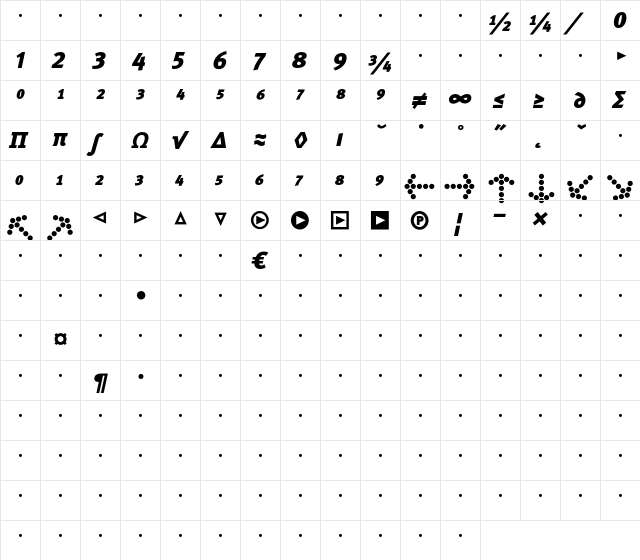
MetaBlackCyr-ItalicExpert Regular
Design Context for MetaBlackCyr-ItalicExpert Typeface
MetaBlackCyr-ItalicExpert takes a measured approach to typography — its balanced proportions and neutral character make it a reliable workhorse for both digital and print work. The dynamic lean of this cut emphasises speed and emphasis in any layout.
Pro Tip: Use MetaBlackCyr-ItalicExpert for emphasis, pull quotes, and subheadings where its slanted energy can add rhythm to the layout.